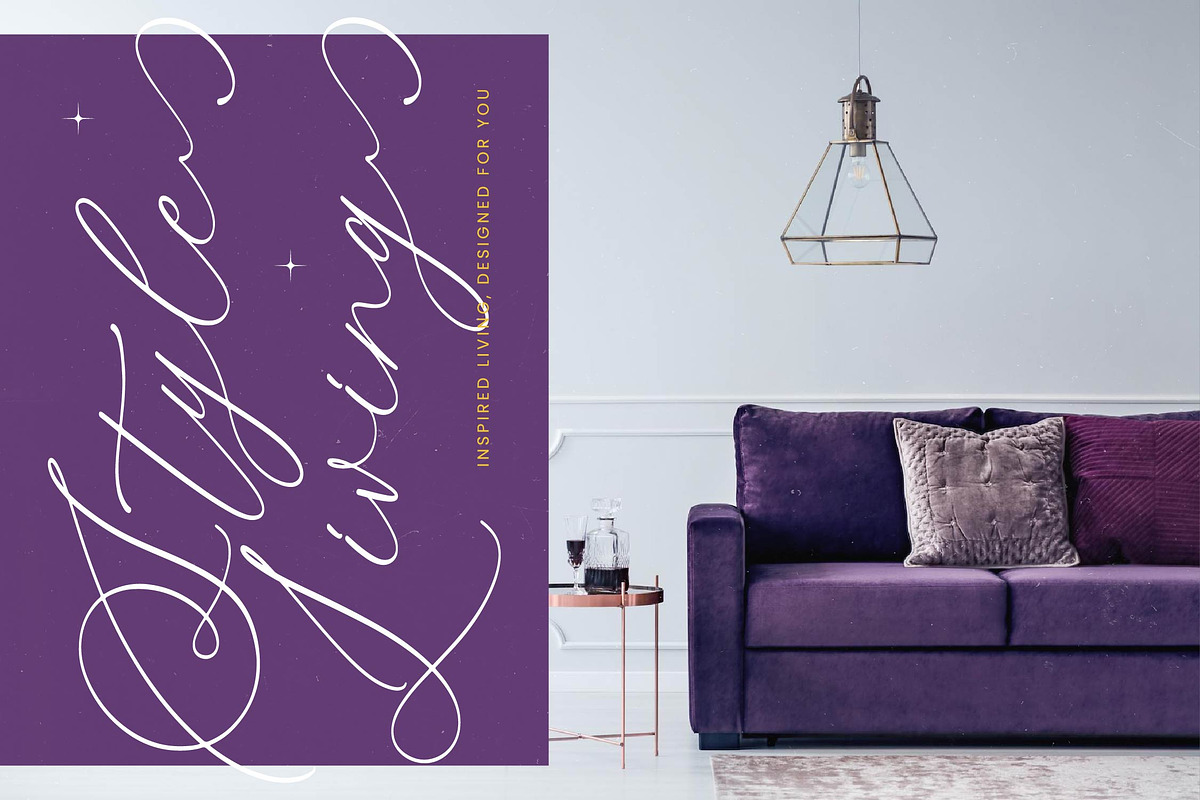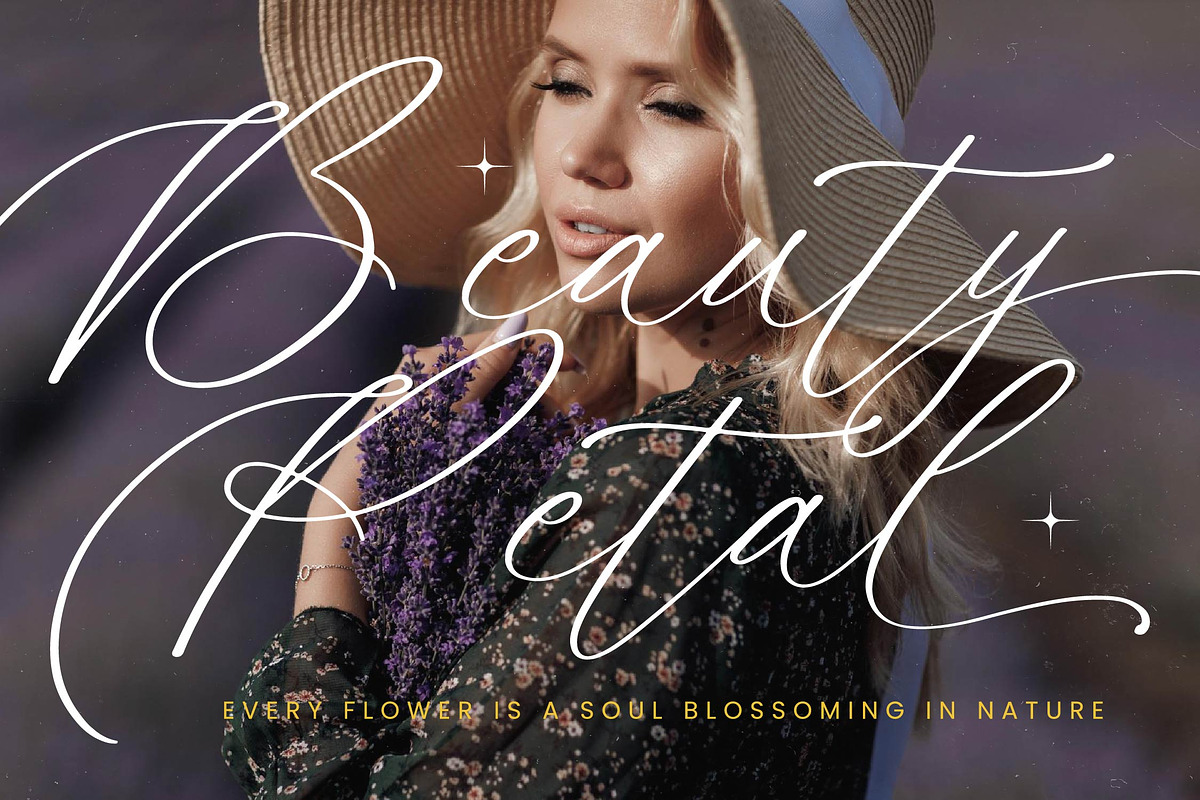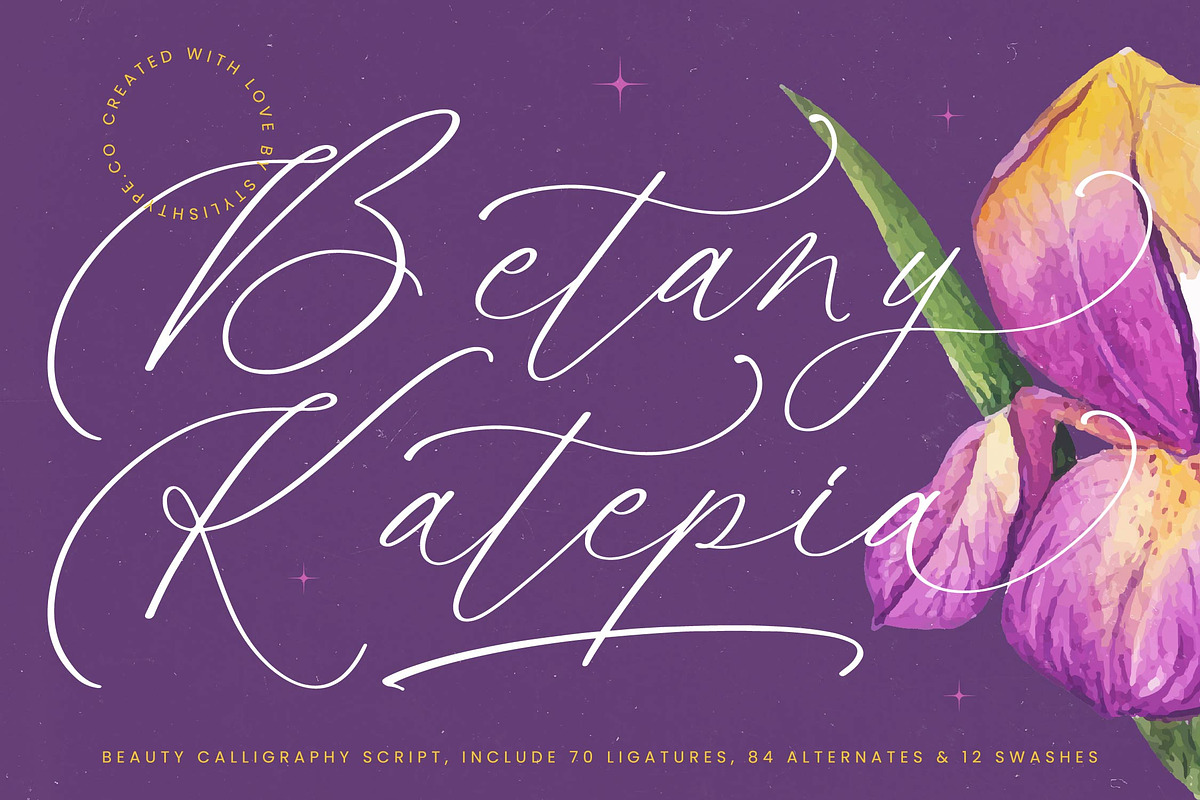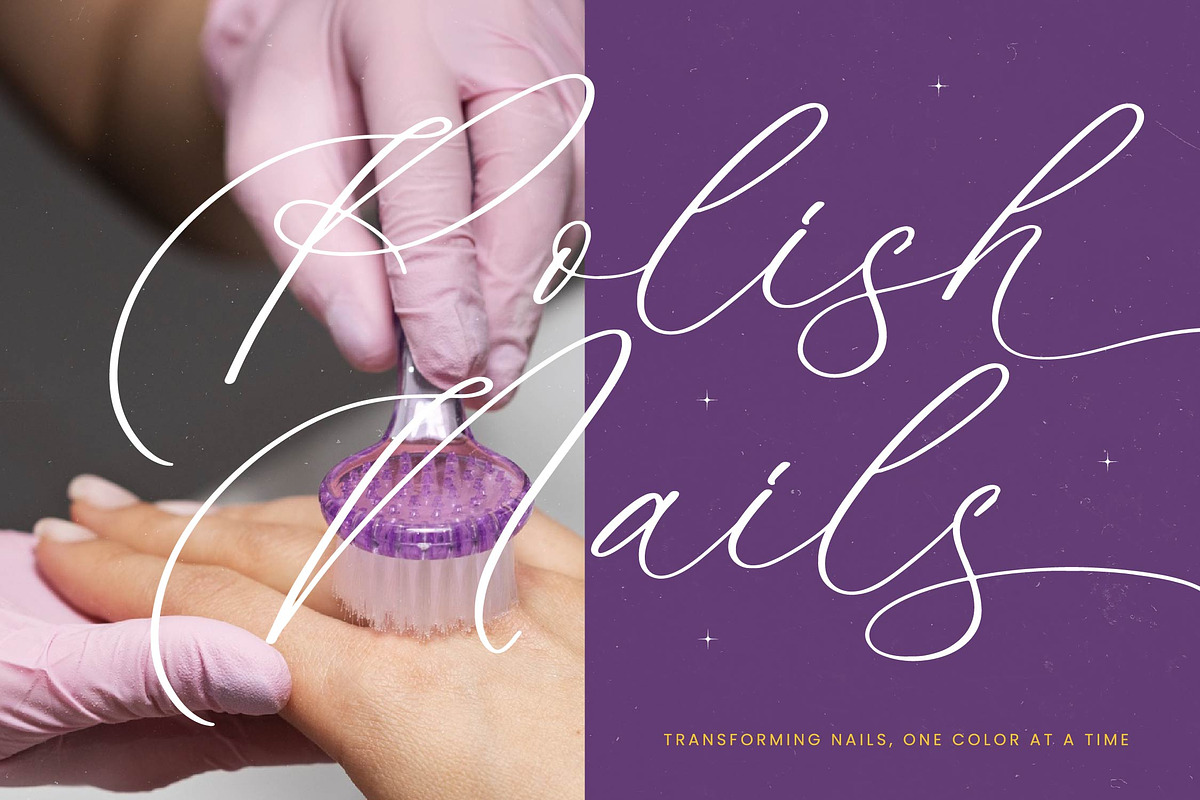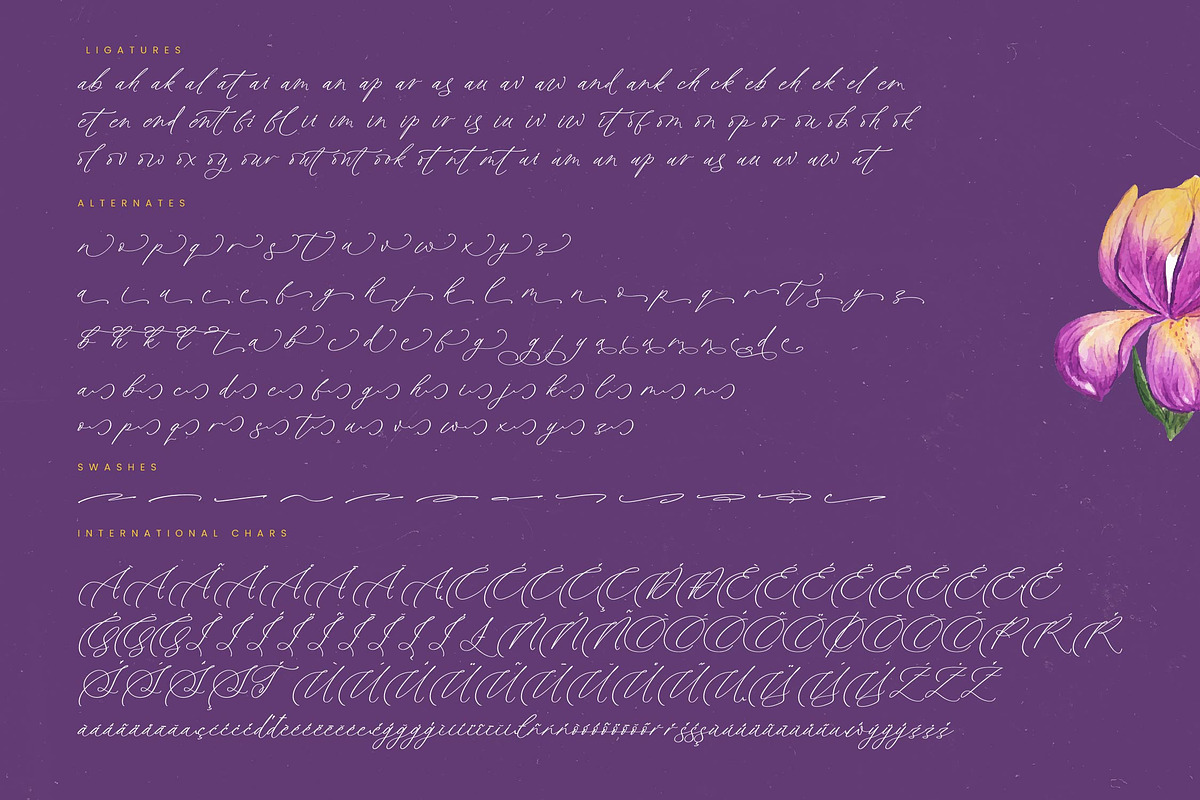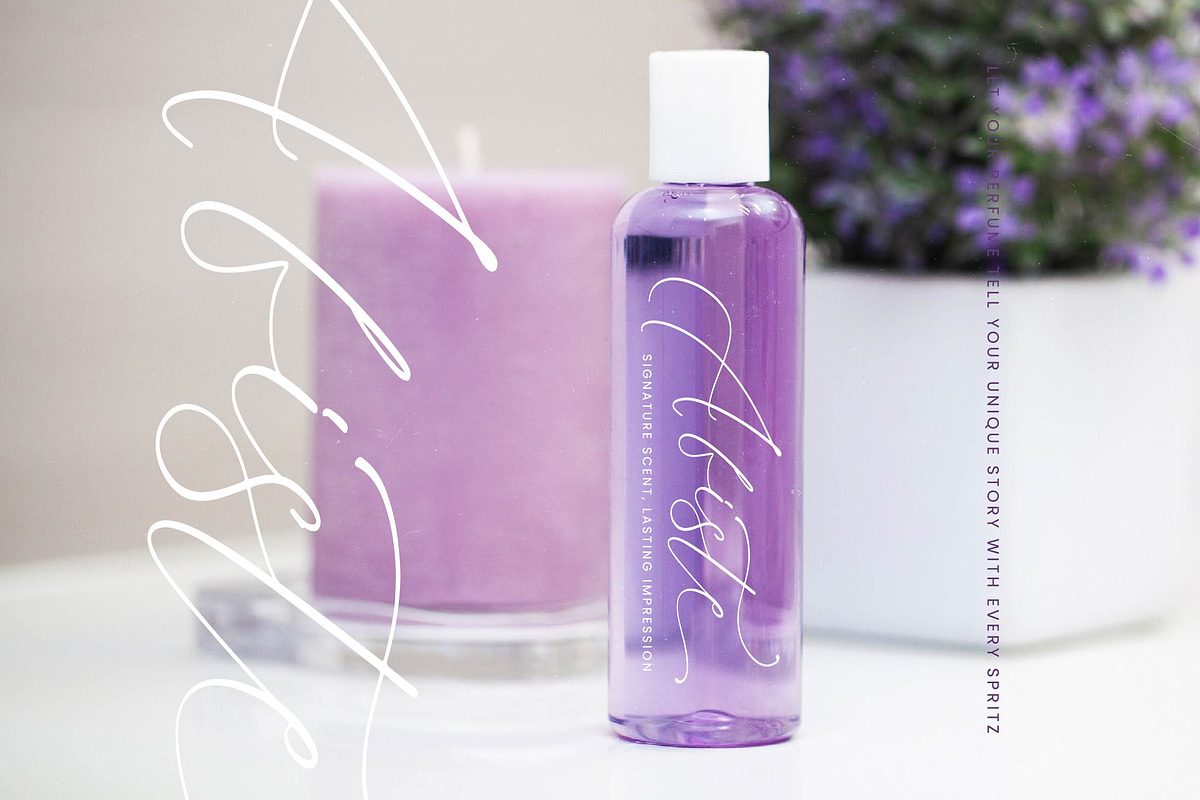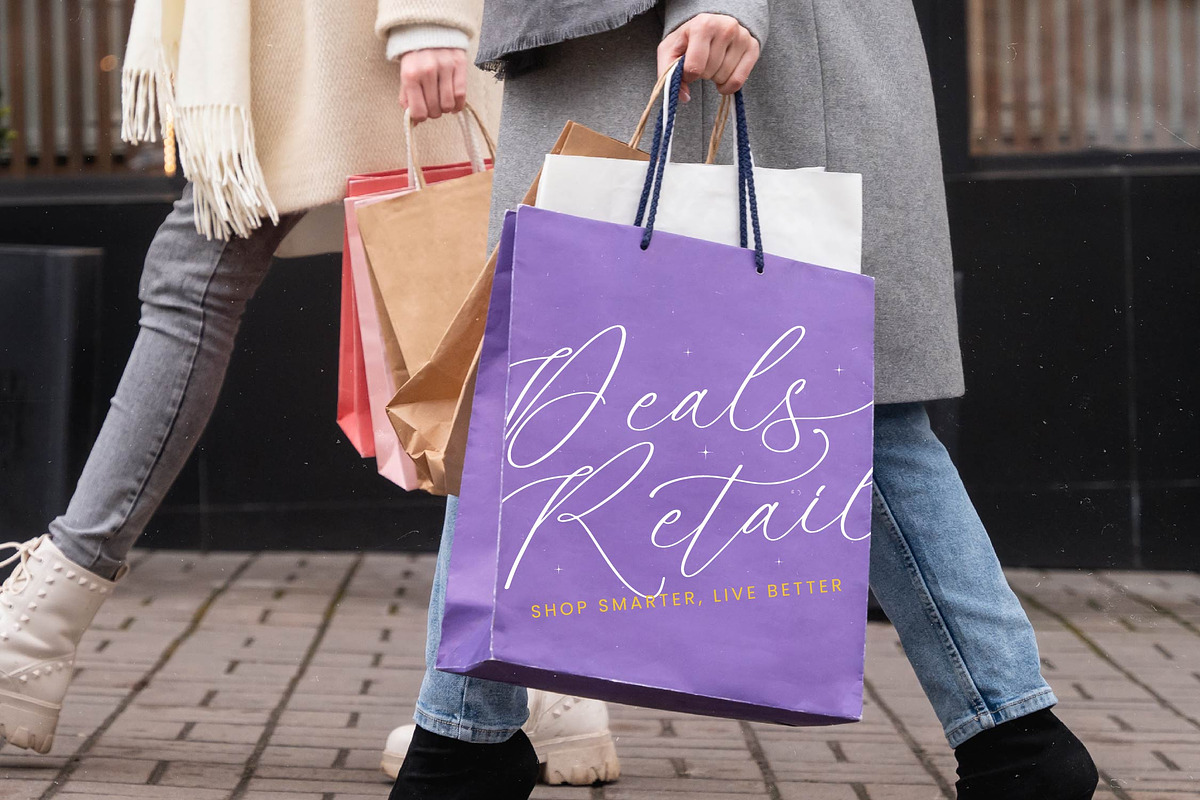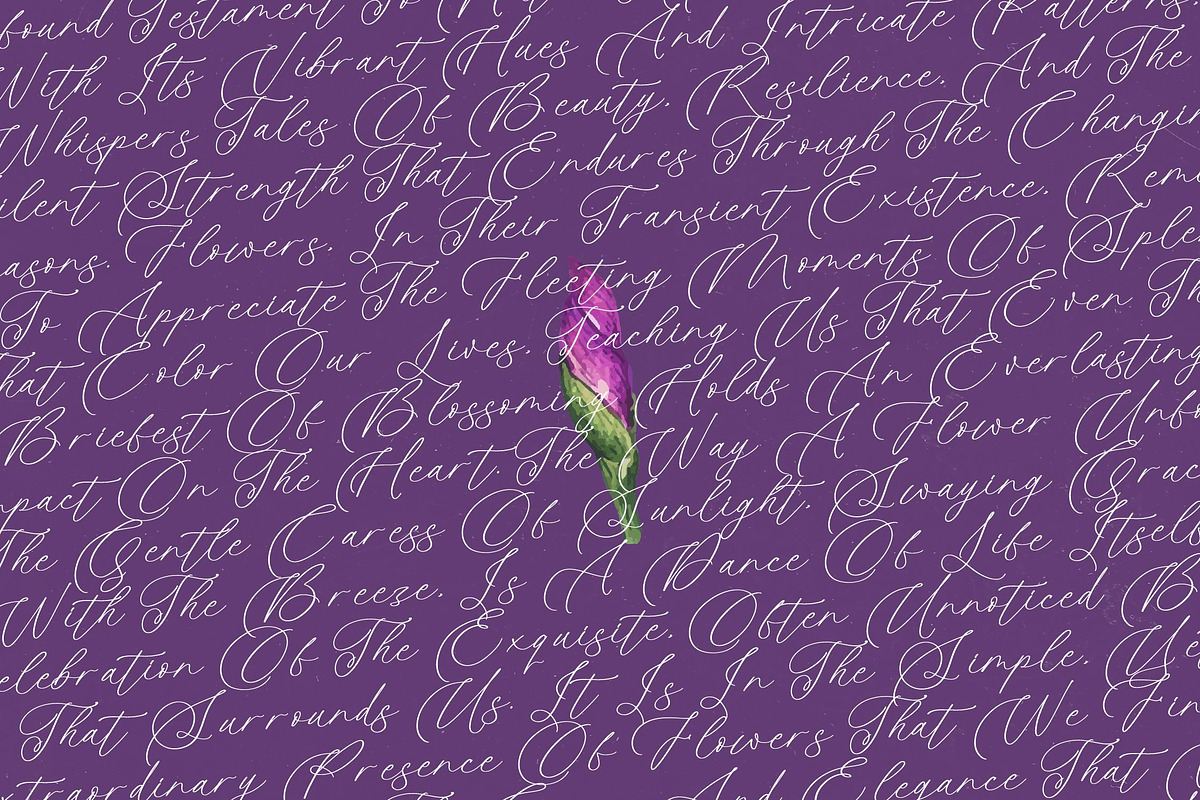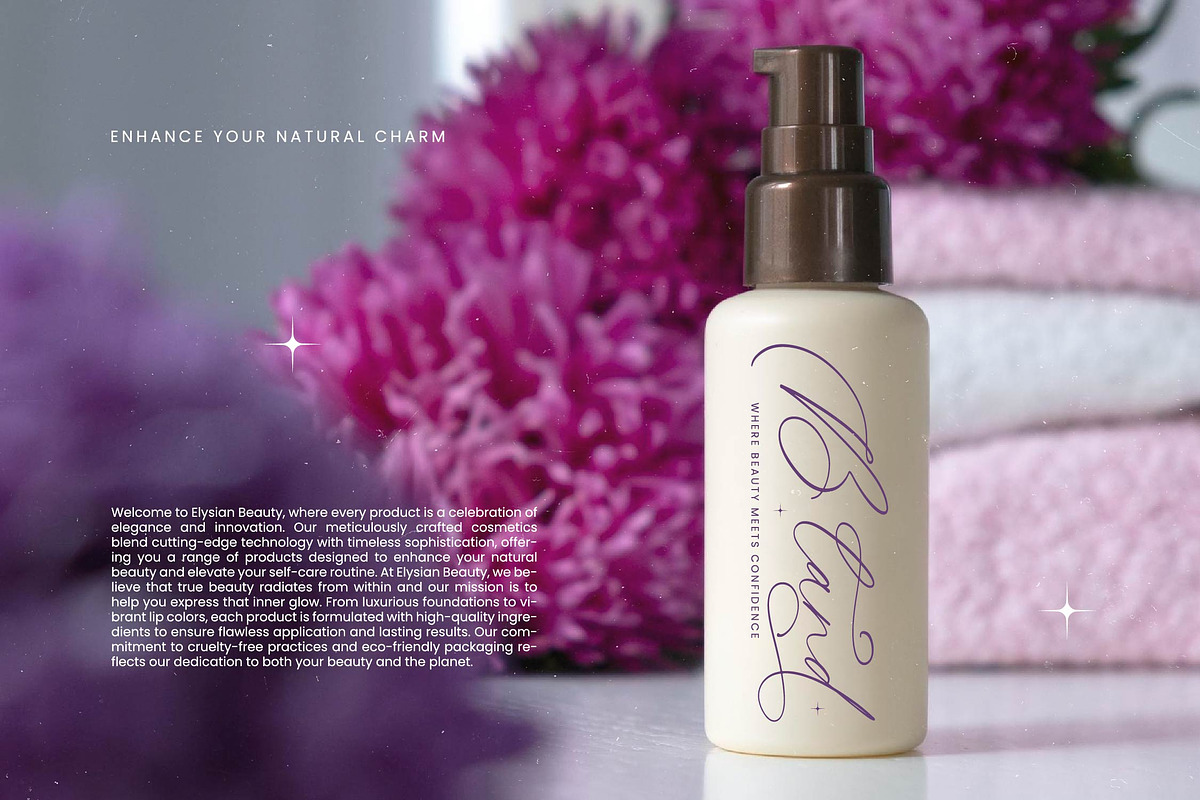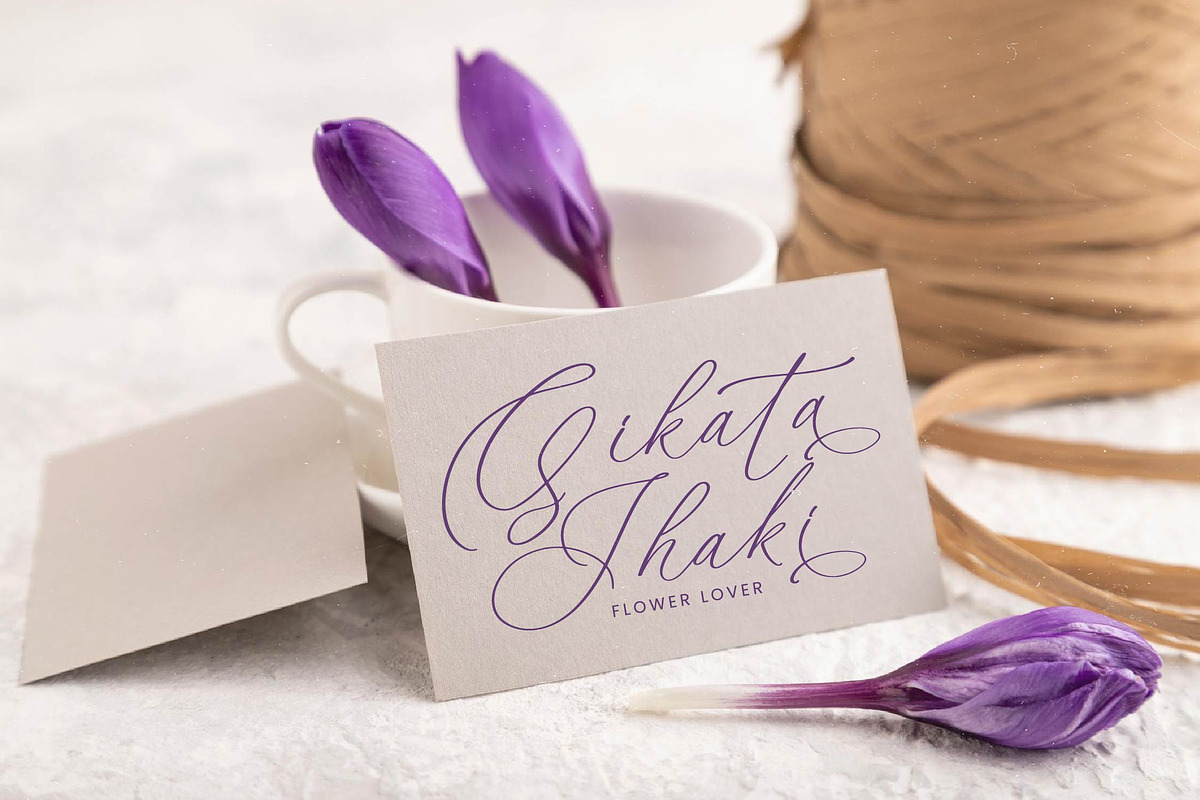
Betany Katepia Beauty Calligraphy
Betany Katepia - Beauty Calligraphy Script , from Stylishtype.Co , Suitable for any projects such as: logos, branding projects, homeware designs, product packaging, mugs, quotes, posters, shopping bags, t-shirts, book covers, name card, invitation cards, greeting cards, label, photography, watermark, special events, and all your other luxury and beautiful projects that need a Luxury Script taste.
- 70 Ligature 84 Alternates & 12 Swashes